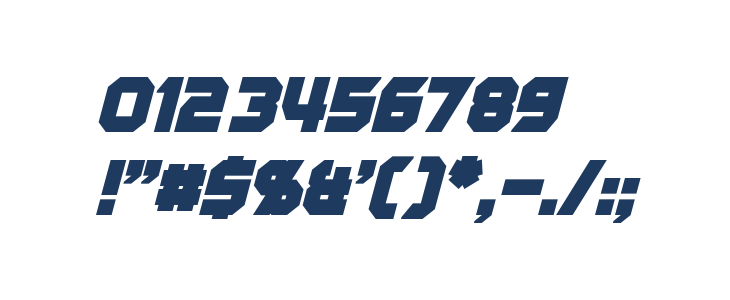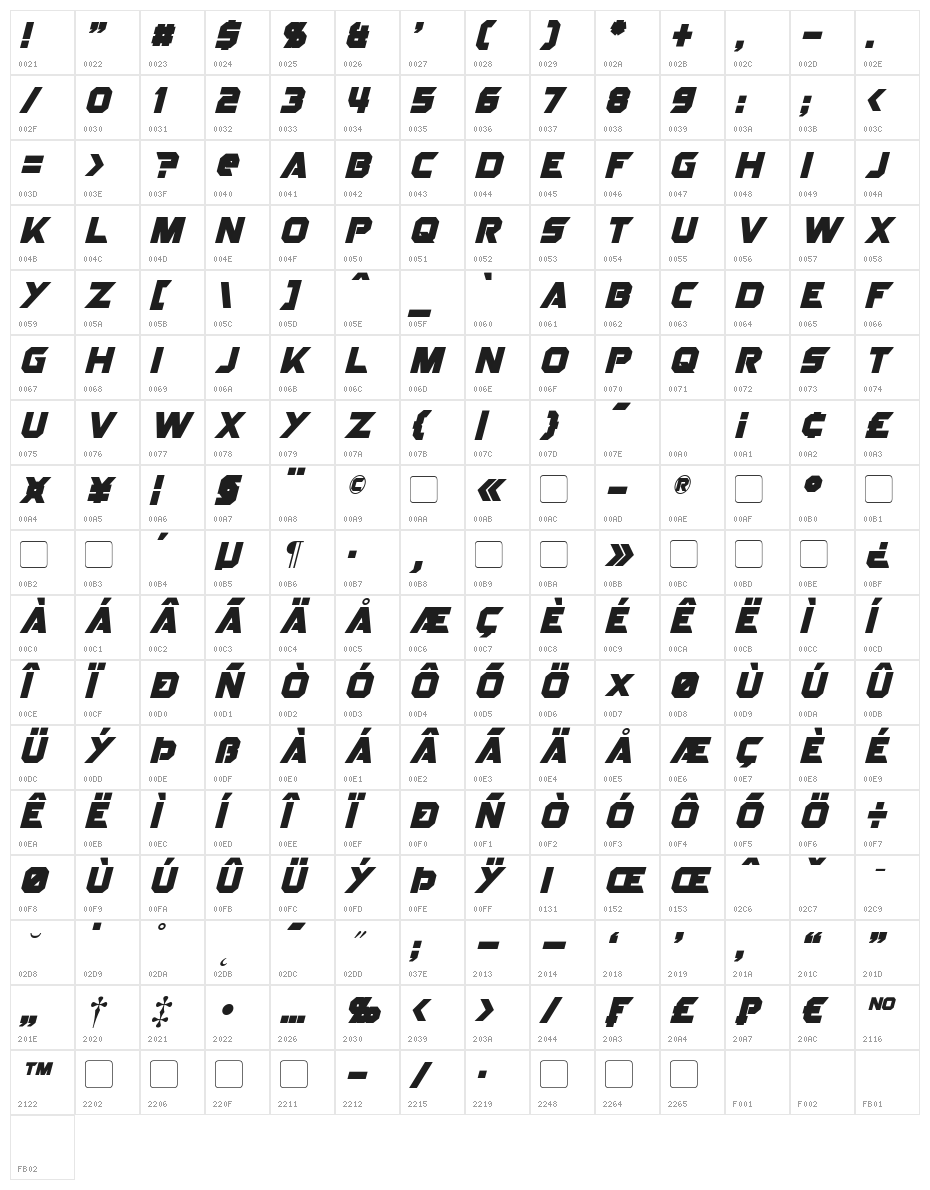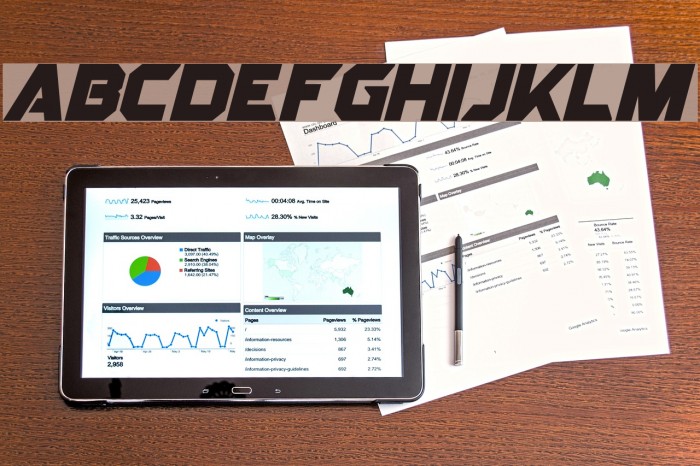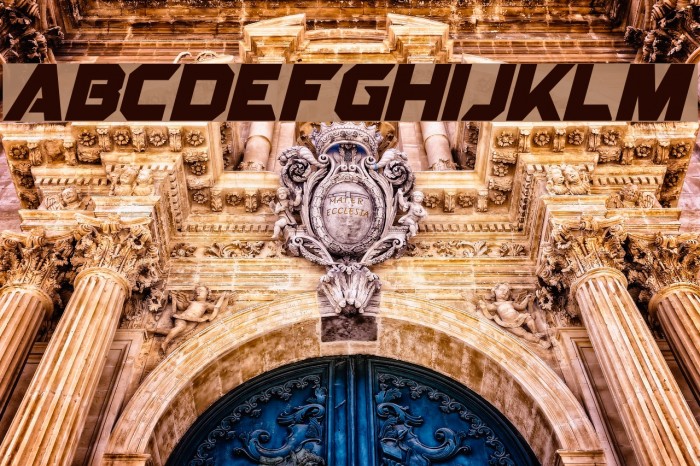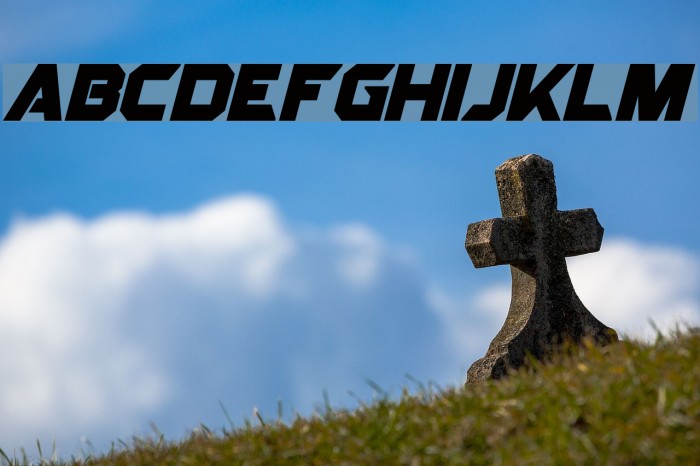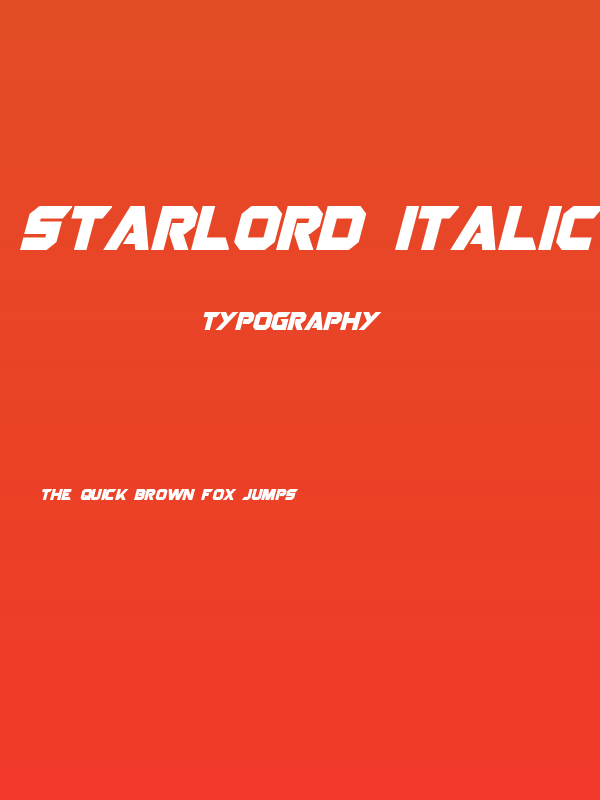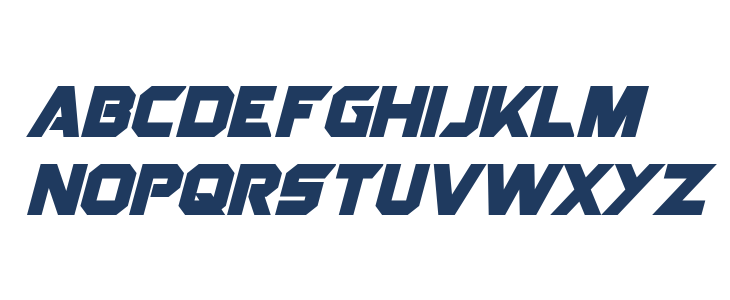
Starlord Italic Font
Starlord Italic Description
This font features a bold, italicized style with sharp, angular edges and a futuristic aesthetic. The characters are designed with a forward slant, giving a sense of motion and dynamism. The uppercase letters are uniform in height, while the lowercase letters maintain a consistent style, enhancing readability. The numbers and special characters follow the same angular design, ensuring a cohesive look across all elements. The bold weight and italic style make it stand out, suitable for attention-grabbing headlines or logos. Its geometric structure and modern appeal make it ideal for projects that require a strong visual impact.
| Proposed Projects | Ideal for sci-fi themed designs, video game titles, movie posters, and branding that requires a modern, dynamic appearance. |